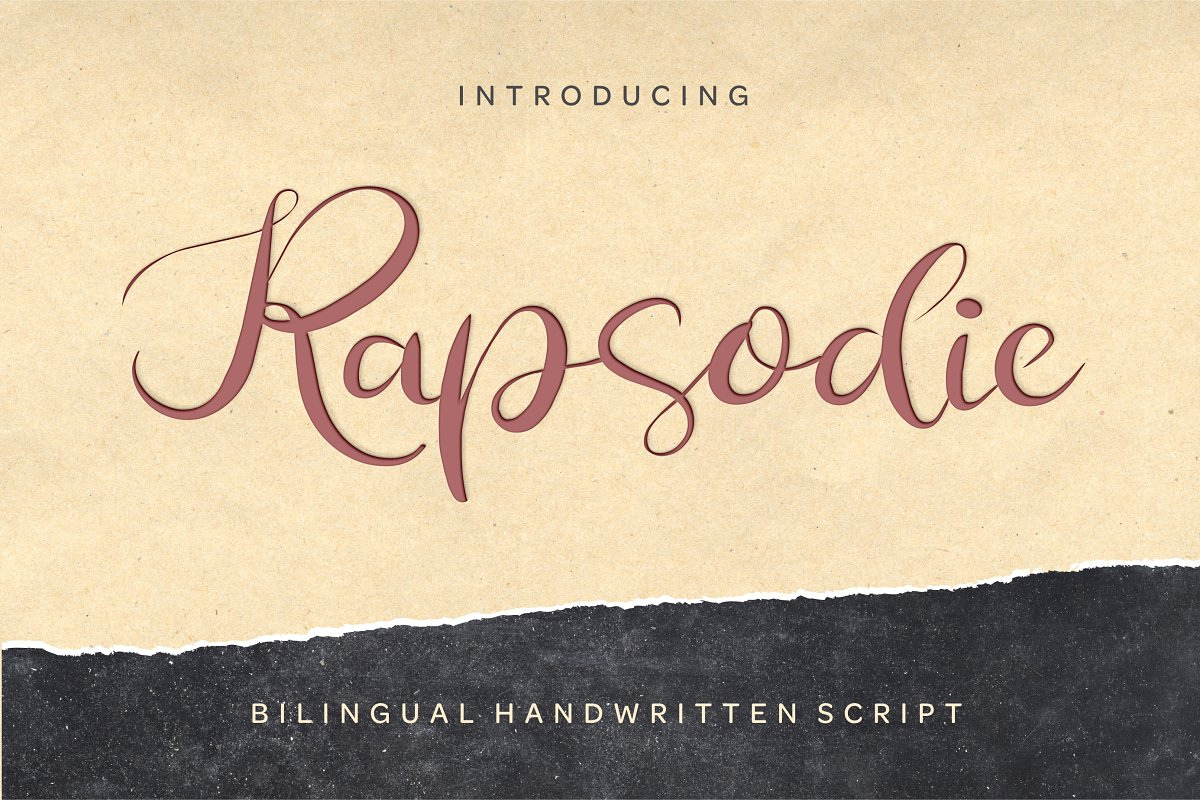
Rapsodie Font
Rapsodie Font is perfect for classical music branding, elegant concert hall signage, sophisticated cultural event materials, orchestral performance promotions, opera house communications, fine arts marketing, premium lifestyle campaigns, and refined advertising projects. This harmonious typeface works beautifully in both digital applications and print media where musical sophistication and cultural refinement are essential design elements.
What makes Rapsodie Font so exciting is its exquisite interpretation of classical musical composition through flowing letterforms that seem to dance with the rhythmic grace and melodic beauty of symphonic masterpieces. The font features elegant characters with musical proportions, lyrical curves, and sophisticated flourishes that evoke the emotional depth and artistic complexity of classical compositions. Its cultured personality and musical heritage make it ideal for brands seeking to communicate artistic excellence, cultural sophistication, and the timeless beauty of classical music while maintaining exceptional readability and professional appeal.
The Rapsodie Font family includes multiple stylistic variations with different musical intensities, along with ornamental capitals and classical decorative elements. Each style maintains the typeface's symphonic character while offering comprehensive character sets including elegant numerals, music-inspired punctuation marks, and special symbols designed to enhance cultural communications and classical branding efforts across various artistic contexts.
This remarkable typeface represents the perfect harmony between classical artistry and contemporary typography for cultural and entertainment industries. Whether you're developing symphony orchestra identities, creating opera season materials, or designing classical music festivals, Rapsodie Font Free Download provides the sophisticated elegance and versatility needed to captivate culturally refined audiences. The font's classical heritage makes it particularly effective for concert halls, opera companies, classical music labels, and cultural institutions celebrating the enduring power of musical artistry.
The carefully crafted musical proportions and optimized cultural performance in Rapsodie Font ensure both artistic authenticity and clear communication across all applications. Its sophisticated presence makes it perfect for classical branding, cultural marketing materials, and artistic communications where its full symphonic character can create emotional connections with audiences who appreciate the profound beauty and intellectual depth of classical musical traditions.